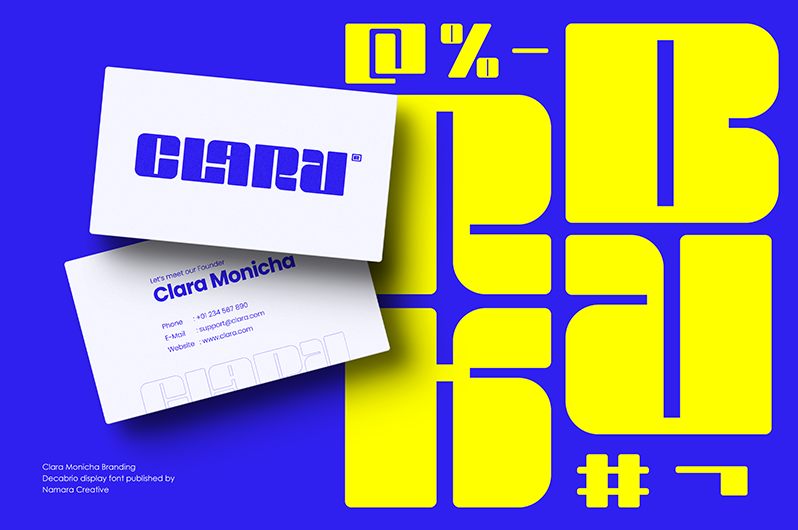
Unique blend of boldness & softness makes this font attractive and suitable for various projects, from corporate branding to creative posters. NOTE : - This font is PERSONAL USE ONLY, NO COMMERCIAL USED ALLOWED. - Link to purchase Full Version and Commercial license here https://onedsgn.com/product/decabrio-display |